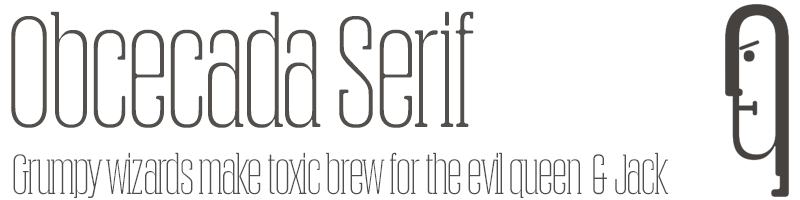
Preview and download Obcecada Serif Font. Created by deFharo in Basic Serif styles with Free for personal use license.
Obcecada Slab Serif Regular & Bold is a very condensed and fine geometric typeface with rounded finish the horns and joints and falling short. =========== • Only for personal use. • Commercial license available. TTF, OTF & Webfonts • Commercial version: OpenType Features. The Greek and Cyrillic alphabets. http://defharo.com/fonts/obcecada-sans-condensed-font/ Obcecada Serif Regular & Bold es una tipografía geométrica muy condensada y fina con acabado redondeado en las astas, slab serif y uniones con ascendentes y descendentes cortos. Descarga los números desde mi web. |